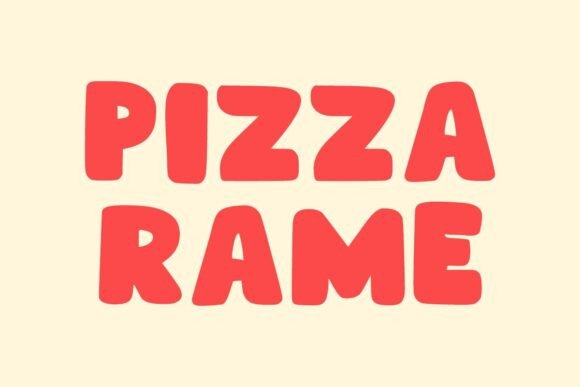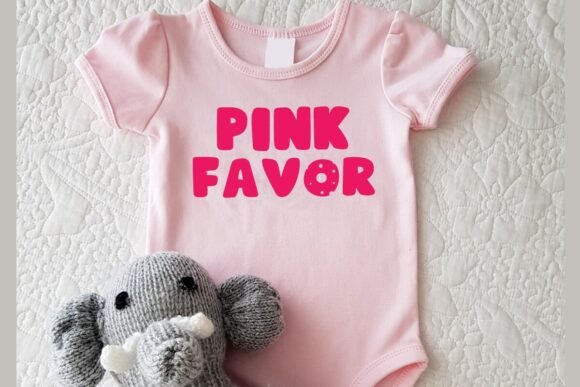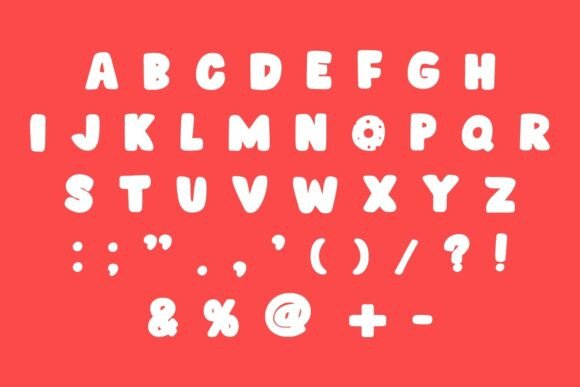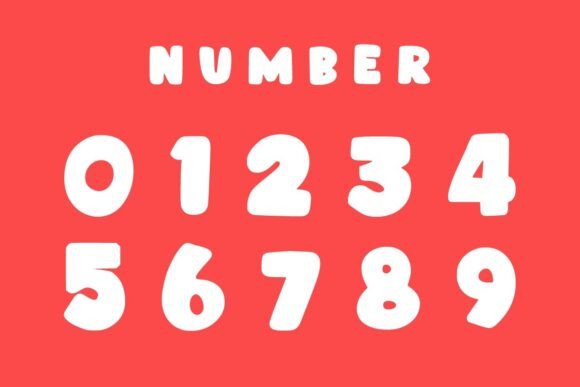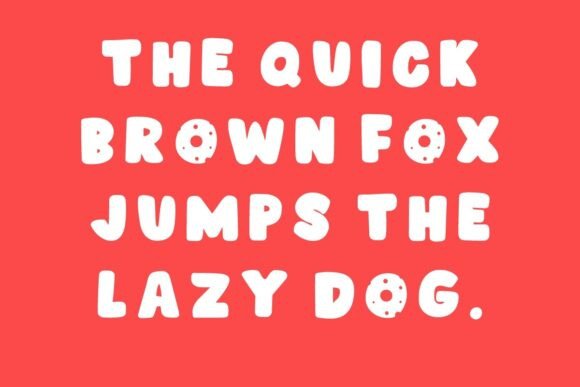
The Sweetest Font for Winter: Choco Donut Font
Ah, the quest for the perfect font! I still remember the time I was working on a winter-themed project for a client, and I just couldn’t find the right font to match the festive vibe. The client wanted something fun, bold, and playful, but I was stuck with a sea of generic sans-serifs. That’s when I stumbled upon the Choco Donut font, and it was love at first sight! 🎉
So, what makes Choco Donut so special? Let’s dive into the good stuff! 😊
- ✨ Fun and playful vibe: Choco Donut is the perfect font for adding a touch of whimsy to your designs. It’s bold, it’s cheerful, and it’s sure to put a smile on your audience’s face.
- ✅ Highly versatile: Whether you’re working on a winter-themed project, a holiday branding campaign, or just a fun design project, Choco Donut fits right in.
- 💡 Great for display text: This font is designed to make a statement, making it perfect for headlines, titles, and other display text.
Of course, no font is perfect, and Choco Donut has a few quirks to keep in mind:
- 🤔 Limited use for body text: While Choco Donut is amazing for display text, it’s not the best choice for longer blocks of text. It’s a bit too bold and playful for that.
- ⚠️ May not work well in small sizes: Like many display fonts, Choco Donut can get a bit lost in smaller sizes. It’s best used in larger sizes where its personality can shine.
The Story Behind Choco Donut
Choco Donut was designed by a team of creatives who wanted to capture the magic of winter and the joy of indulging in sweet treats. They’re inspired by the colorful, playful world of desserts and the whimsy of winter wonderlands.
- Q: Does Choco Donut support OpenType features?
- A: Yes! Choco Donut supports OpenType features like glyphs and stylistic alternates.